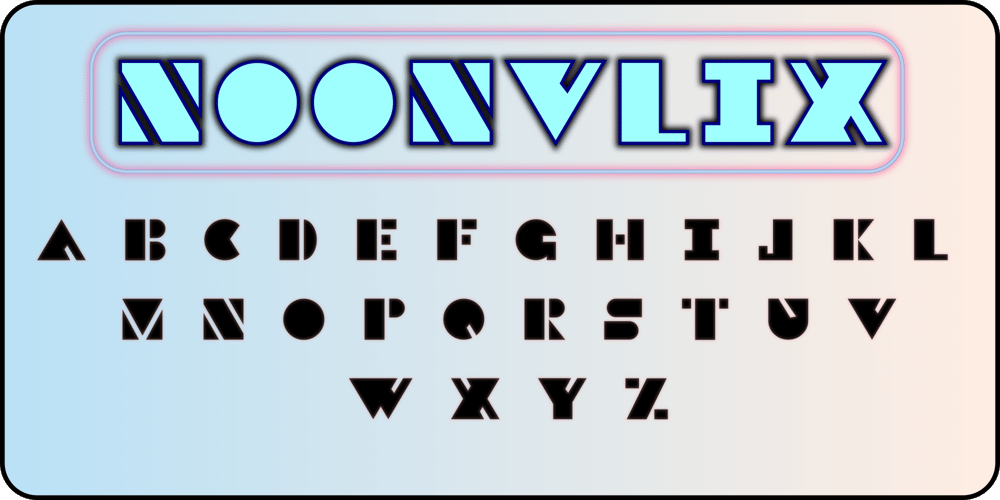
Noonvlix Font Family was designed by Roci Nonci and published by ArashiGames. Noonvlix contains 1 styles and family package options. A font designed in the style of vintage stencil show-cards. Uses bold chunky geometric shapes to form characters. This font is great for creating titles for books and products.